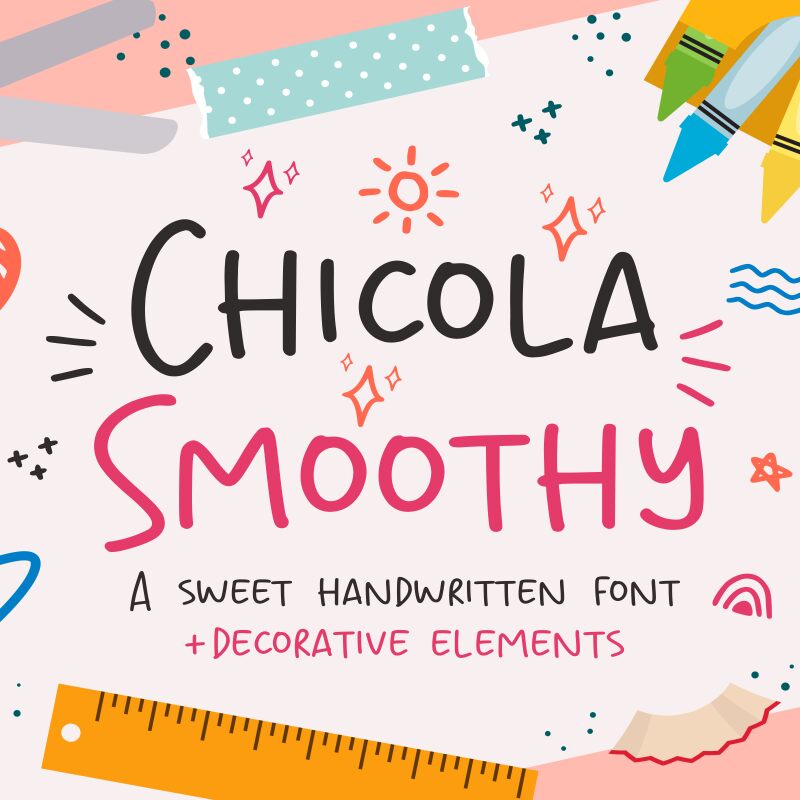
Chicola Smoothy
Chicola Smoothy is a light, sweet handwritten font designed by Allouse Studio. It's perfect for crafting stylish greeting cards, wedding invitations, and other special projects that need a touch of elegance.